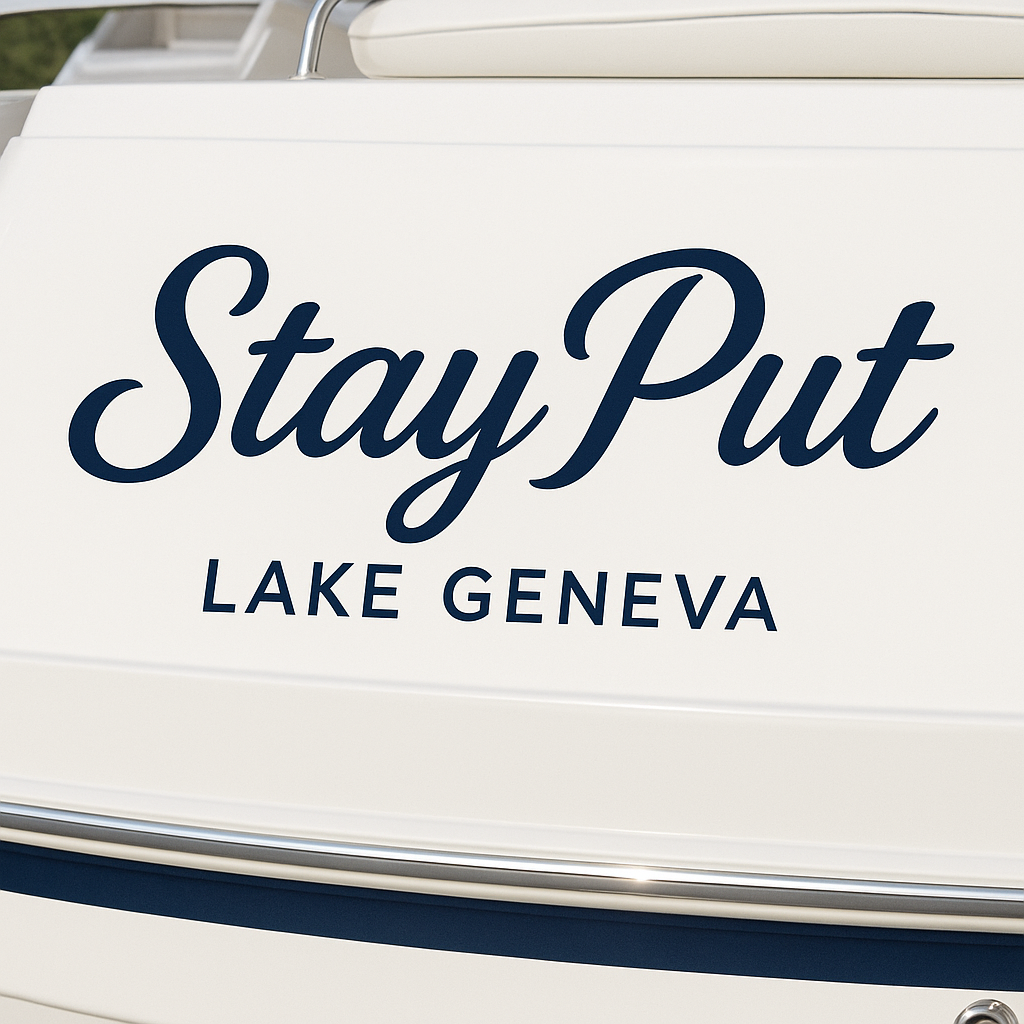
Boat Name Font
I used Chat GPT to help create a boat name, which I now want to order. However, I cannot identify the exact font. It says it is close to Pacifico or Lobster but neither of those are an exact match. Can anyone help identify the font used for “Stay Put”?1CAA2BC9-C3B7-4C2A-A98F-0D889F61A95C.png.3af2075d0db878451da49395aeca3781.png
The problem with AI-generated artwork that includes type is that the type may not correspond to an actual typeface—the lettering may be an amalgam of styles derived from multiple sources.
Sorry, only finding similar for Stay Put: Lunair Base
(LAKE GENEVA is very similar to Triomphe by Jérémie Dupuis, but not finding a trusted download site for it. Also similar to Punkto Semi Bold.)